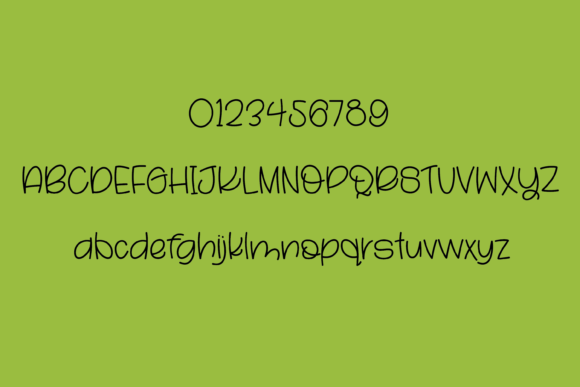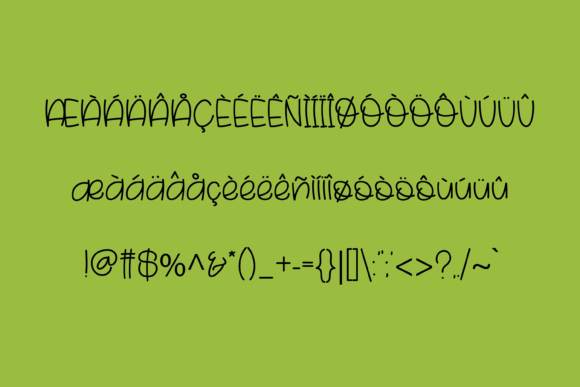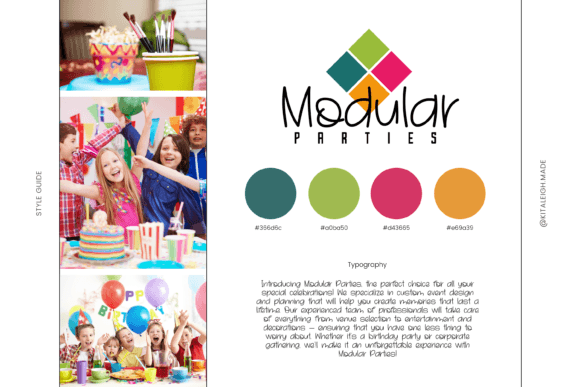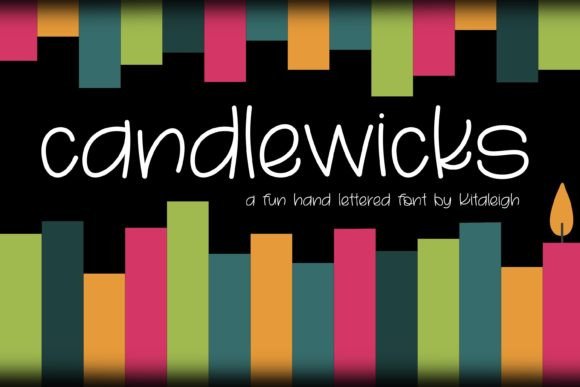
Introducing Candlewicks Font: The Playful Sans Serif for Your Designs
Are you tired of using the same old fonts for your designs? Do you want to add a touch of playfulness and whimsy to your projects? Look no further than Candlewicks Font, a friendly sans serif that’s here to bring some fun and flair to your creations. With its bubbly and charming style, this font is the perfect companion for designers and crafters looking to add a little excitement to their work.
The Power of Quirky Punctuation
Candlewicks Font is more than just a pretty face – it’s also packed with quirky punctuation marks that will take your designs to the next level. From exclamation points to question marks, and even quotation marks, every punctuation mark in Candlewicks Font has been carefully crafted to add a touch of personality to your text. Whether you’re designing a logo, a poster, or a social media graphic, Candlewicks Font’s quirky punctuation marks will help you stand out from the crowd.
A Font for Designers and Crafters
Candlewicks Font is perfect for designers and crafters who want to add a playful touch to their projects. Whether you’re creating a brand identity, a website, or a handmade craft, this font is sure to bring a smile to your face. With its clean and simple sans serif design, Candlewicks Font is versatile enough to be used in a variety of contexts, from digital designs to print materials.
Key Features of Candlewicks Font
- Playful and whimsical design: Candlewicks Font has a bubbly and charming style that’s perfect for adding a touch of fun to your designs.
- Quirky punctuation marks: Every punctuation mark in Candlewicks Font has been carefully crafted to add a touch of personality to your text.
- Clean and simple sans serif design: Candlewicks Font has a versatile design that’s perfect for use in a variety of contexts.
- Perfect for designers and crafters: Whether you’re creating a brand identity, a website, or a handmade craft, Candlewicks Font is sure to bring a smile to your face.
How to Use Candlewicks Font
- Use it for headings and titles: Candlewicks Font is perfect for adding a playful touch to your headings and titles.
- Mix it with other fonts: Candlewicks Font pairs well with a variety of other fonts, so don’t be afraid to experiment with different combinations.
- Experiment with different colors and textures: Candlewicks Font looks great in a variety of colors and textures, so don’t be afraid to get creative.
| Font Name | Candlewicks Font |
| Author | kitaleigh |